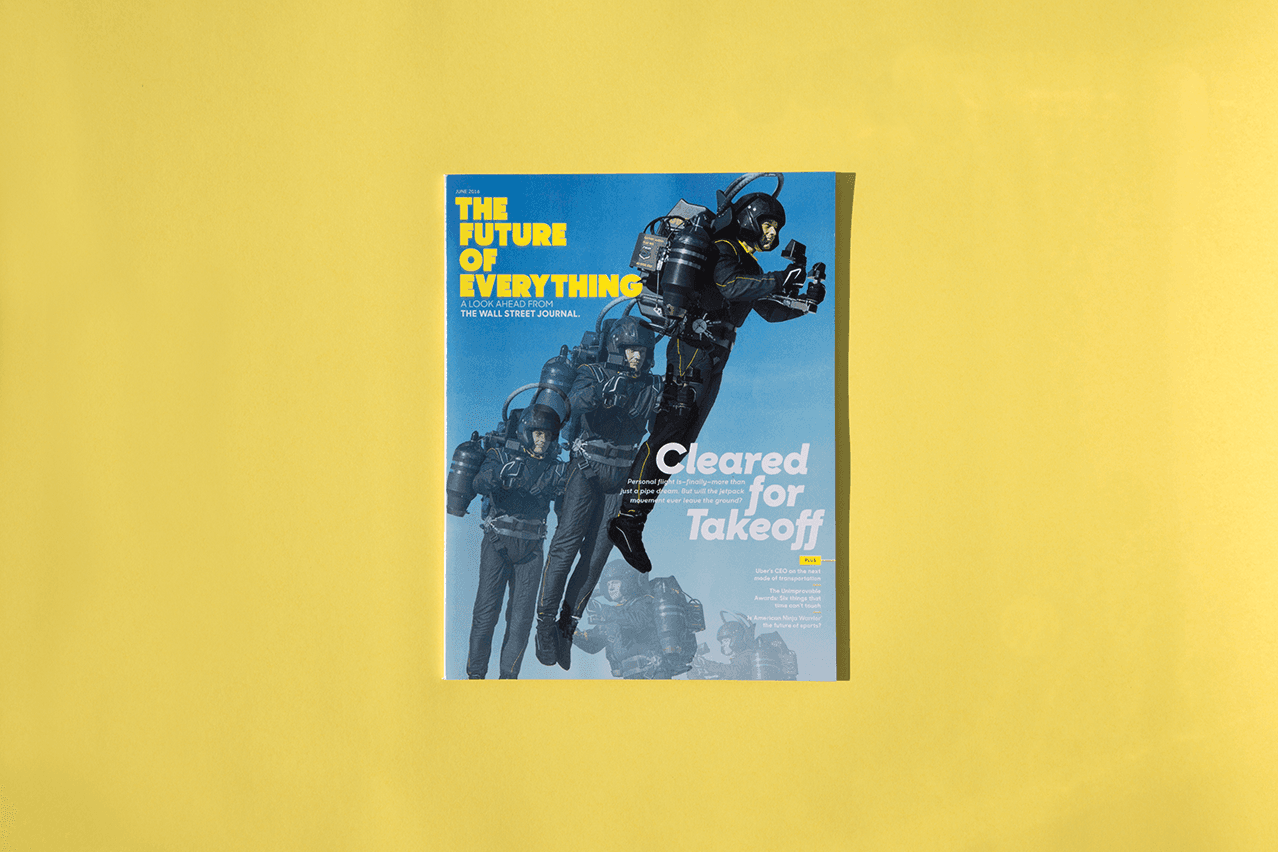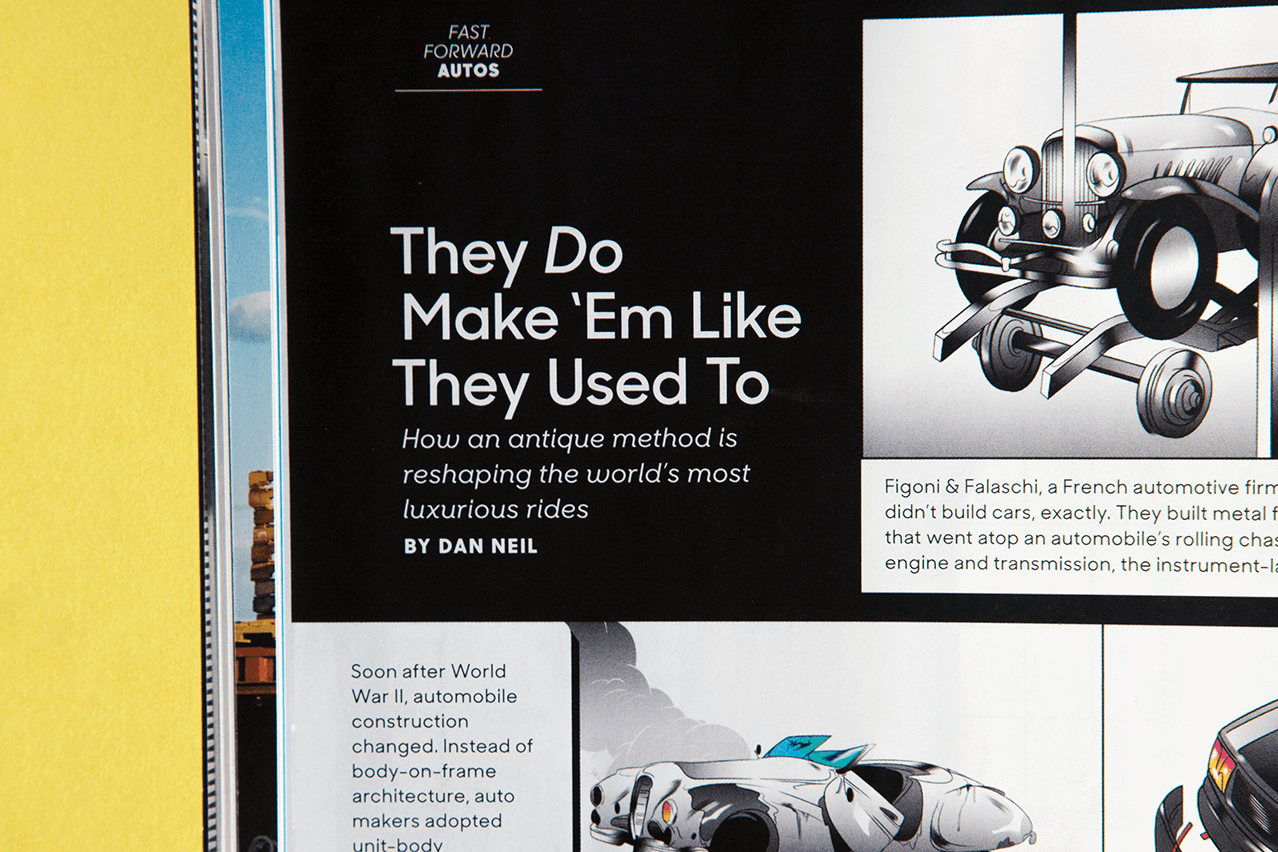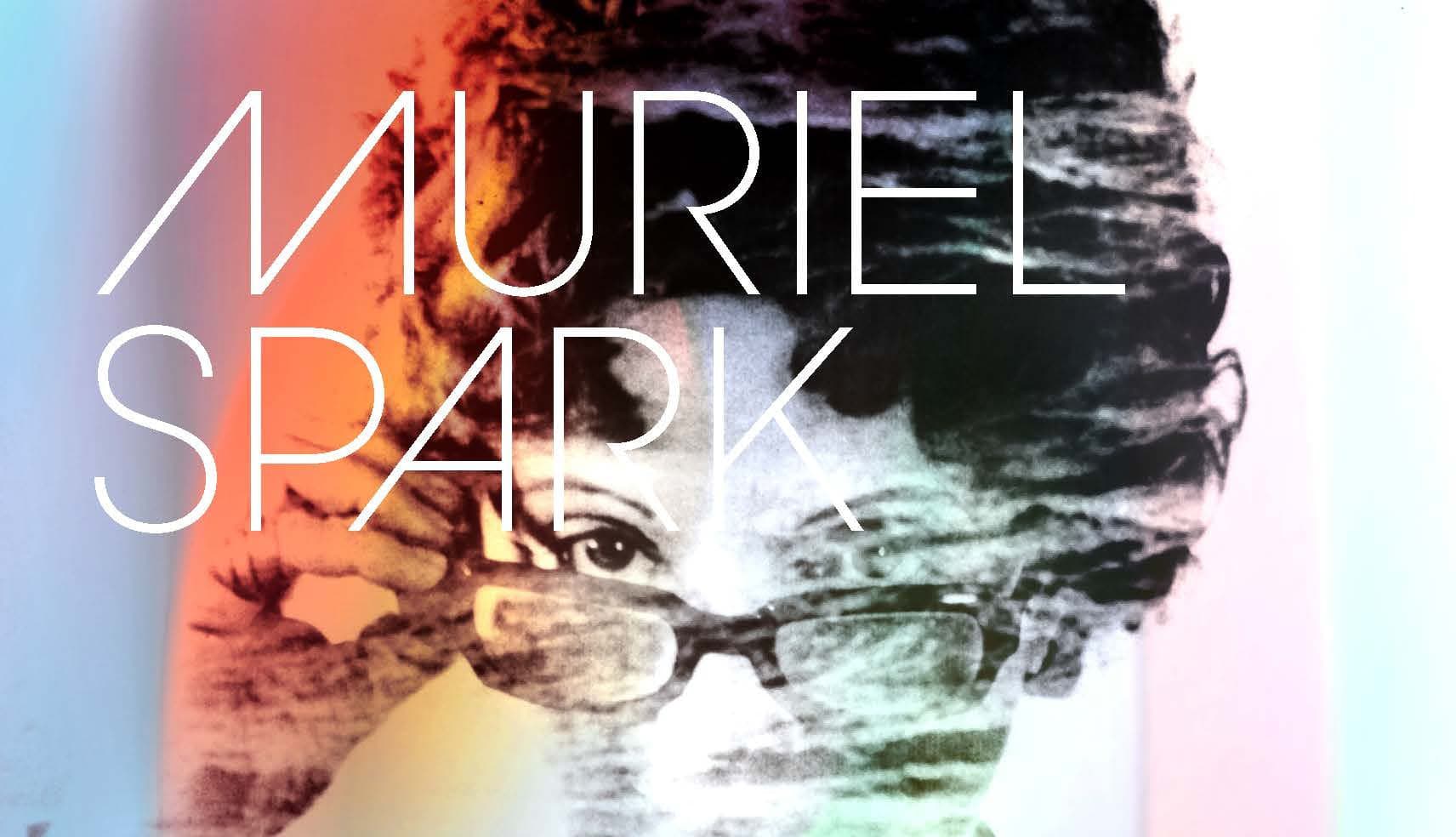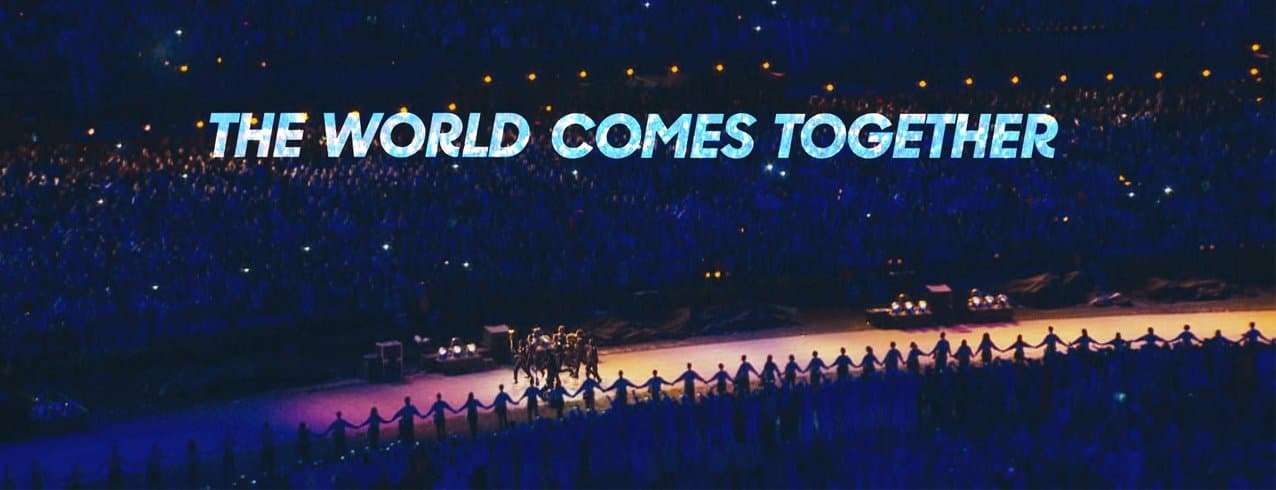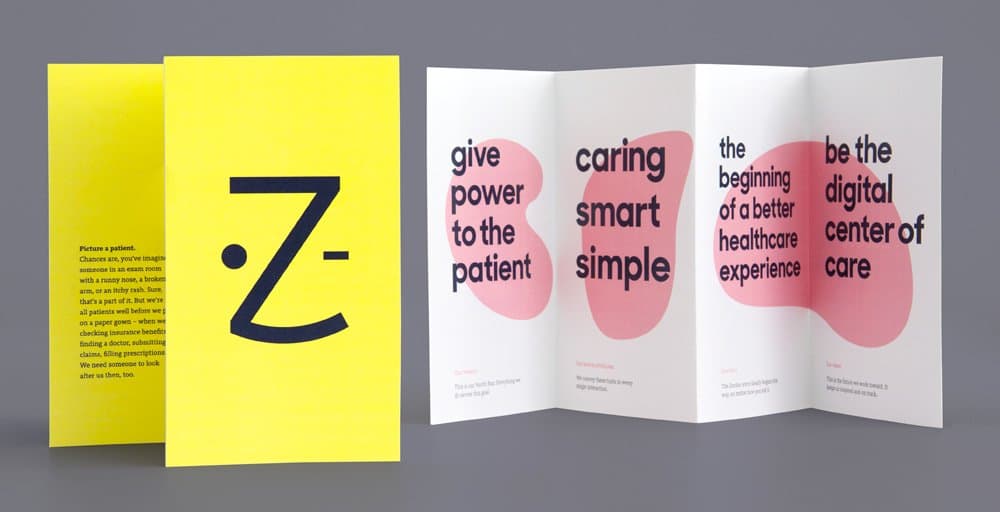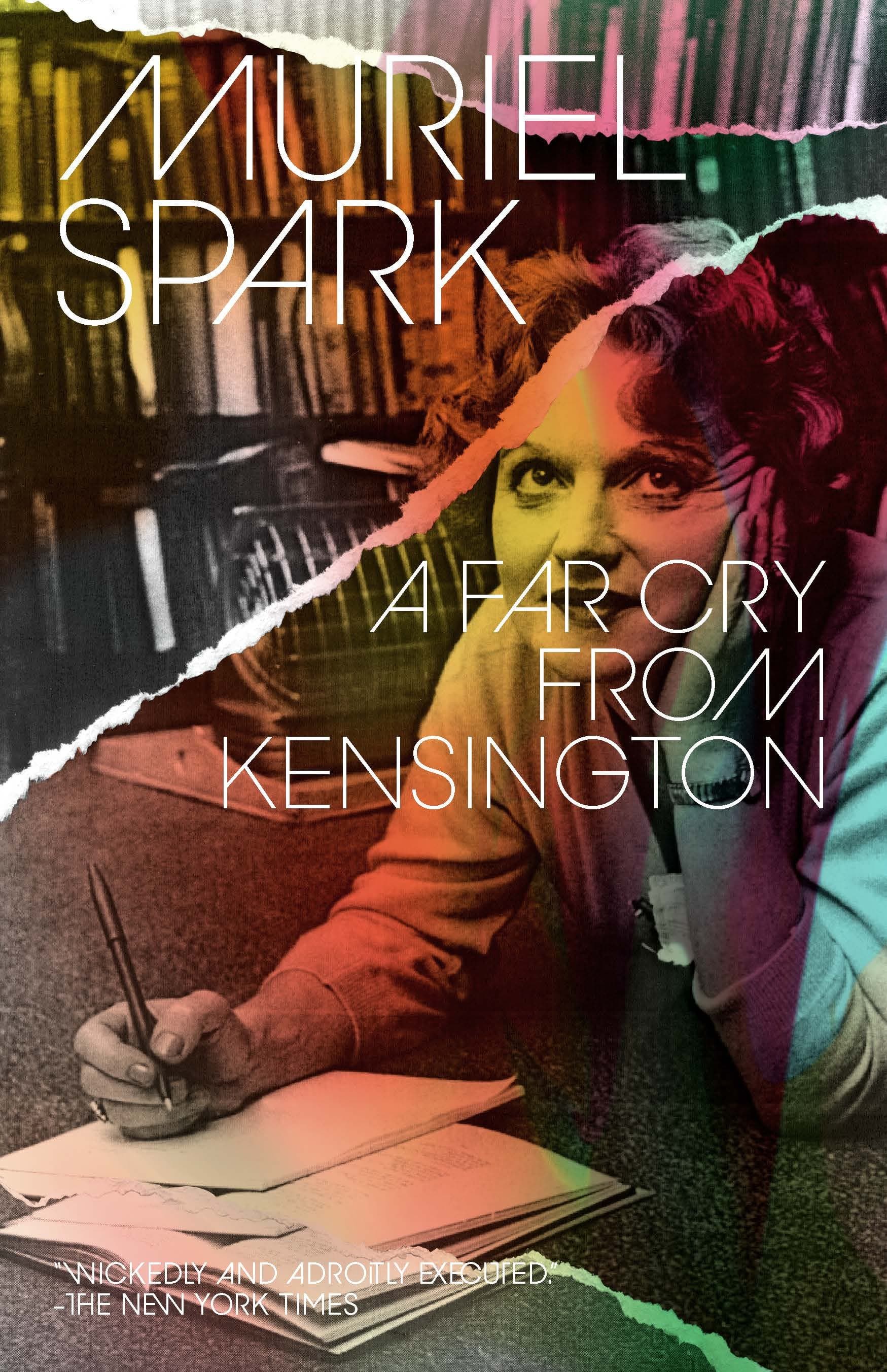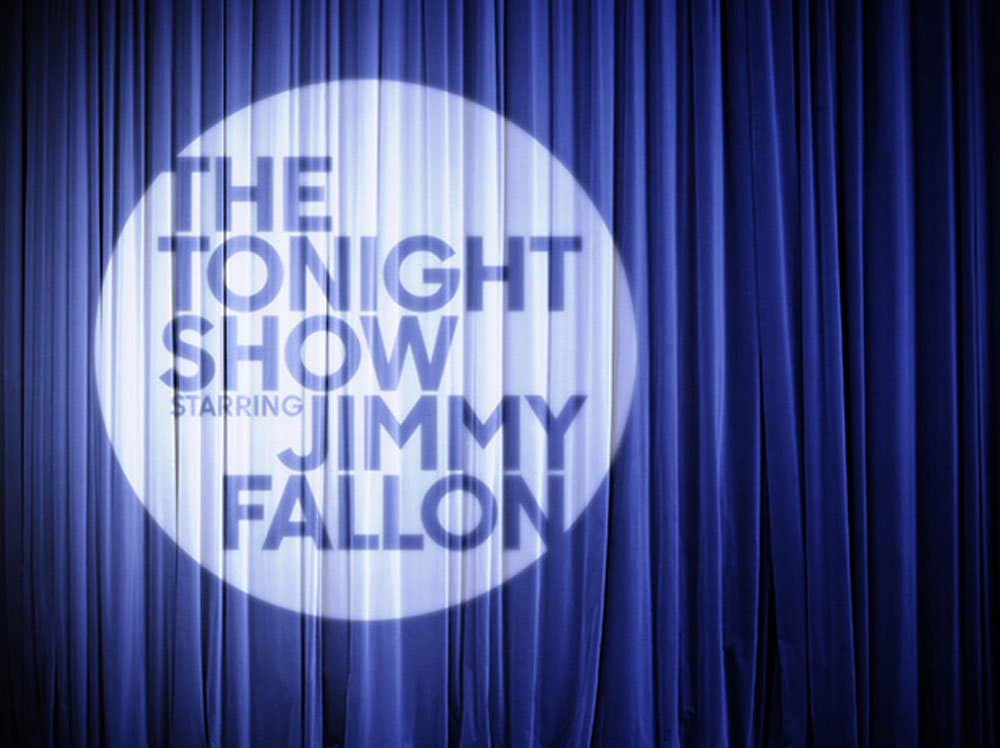
Sharp Sans Display No.2
The Sharp Sans Collection comprises four related families created for editorial design that began as a pair of display fonts inspired by Herb Lubalin’s iconic Avante Garde; Sharp Sans Display No.1 and No.2 then attracted Hillary Clinton’s creative team in 2016, which necessitated an expansion of the family that was designed within the unique environment of a modern presidential campaign, giving birth to Sharp Sans Standard and Slab to complete the family. The Sharp Sans Collection has been optically designed for comprehensive editorial situations requiring complex typographic hierarchy, and was developed and rigorously tested during a key turning point in the era of digital communications. Sharp Sans adapts to a wide range of moods but stays centered on geometric neutrality, communicating both clarity and familiarity. The Sharp Sans superfamily was designed to fulfill every possible typographic need on the campaign trail: headlines and banners, readable text in both digital and printed contexts, websites and social media platforms, and everything in between. These wide-ranging needs utilized daily over the course of a modern presidential campaign have ensured the relevance of Sharp Sans in our contemporary world, where adaptability and timelessness have become fundamental requirements of digital type design.
Designed By Lucas Sharp
Lubalin Ligatures
In use for the Tonight Show
While Sharp Sans Display No.1 ends its round monolines with diagonally sheared terminals, Sharp Sans Display No.2 shears those terminals on a 90° angle. This small distinction allowed us to create two unique but interconnected font families. Designed for ultimate utility, Sharp Sans is our use-it-for-everything font. The last addition to the collection is Sharp Slab, the Egyptian-slab serif companion to Sharp Sans.